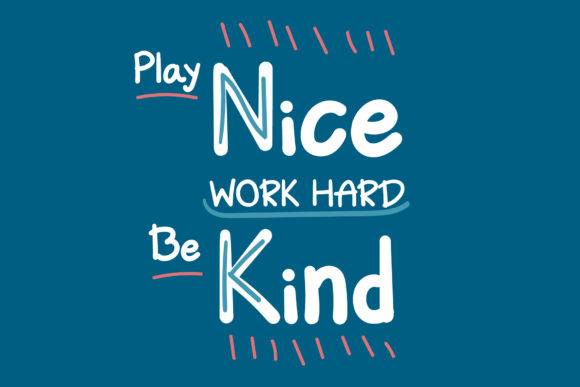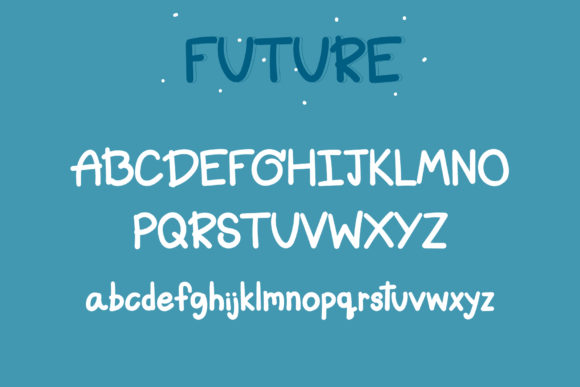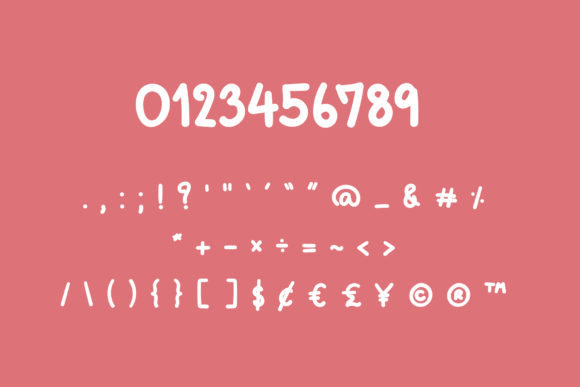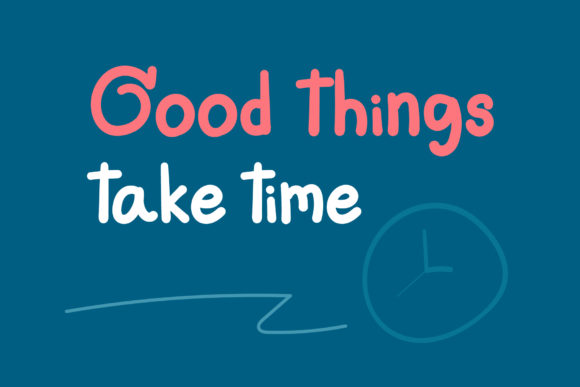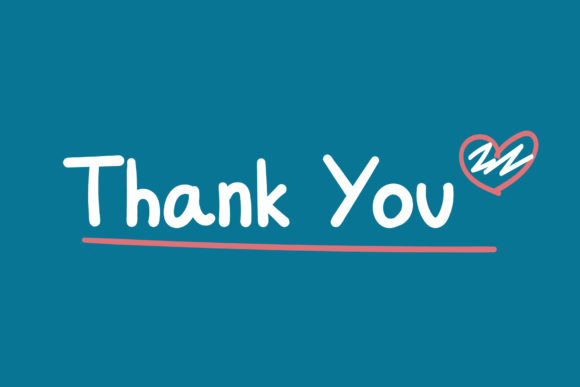
Future Font
About Future Font
Future Font embodies fun, quirkiness and authenticity. This enchanting handwritten font will turn any creative idea into a true standout.